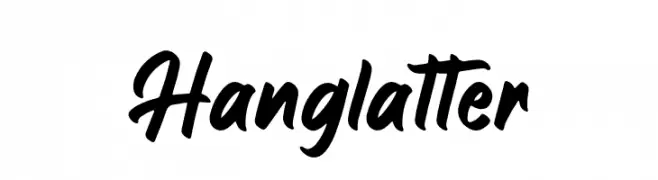
A bold, playful font with a three-dimensional, cartoonish style.
A bold, decorative serif font with high contrast and elegant flair.
A bold, decorative font with high contrast and artistic flair.
An elegant, high-contrast font with refined, slender letterforms and decorative flourishes.
An elegant, high-contrast italic font with a refined and stylish appearance.
An elegant, high-contrast font with modern and classic elements.
A playful, hand-drawn font with bold, outlined characters.
A bold, energetic script font with a handwritten style.
A playful, hand-drawn font with rounded edges and consistent spacing.
A bold, condensed font with a modern, geometric style.